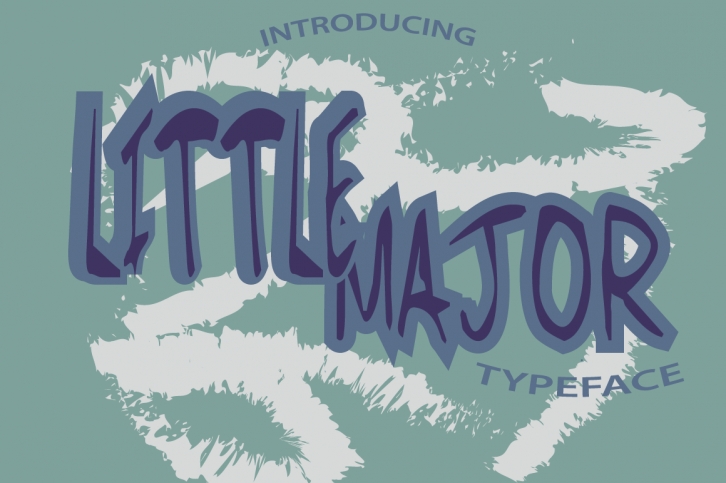
Little Major is a nice display font that has a beautiful and natural feel to it. You can add it to a wide set of products including posters, social media posts, greetings and thank you cards. book and music album covers, movie titles, etc., and it will capture your audience.